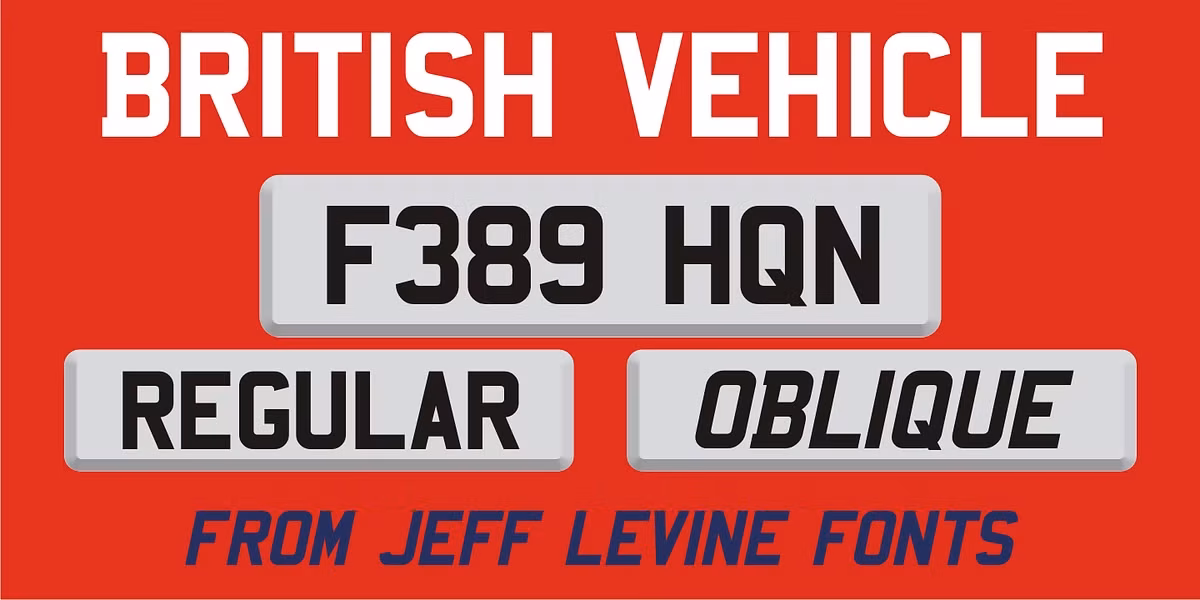
British Vehicle JNL Font Free Download is a distinctive typeface inspired by classic automotive design and British vehicle signage. With its bold, clean lines and industrial feel, this font is perfect for creating vintage-style logos, posters, automotive branding, and any project that requires a retro, mechanical aesthetic.
The font’s geometric structure and robust letterforms make it ideal for projects related to cars, racing, or any design that calls for a strong, industrial look. Whether you’re working on a retro car brand logo or creating signage for an event, British Vehicle JNL delivers a sturdy, timeless vibe to your typography.